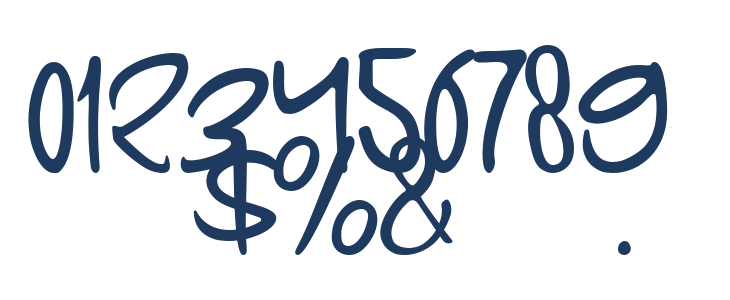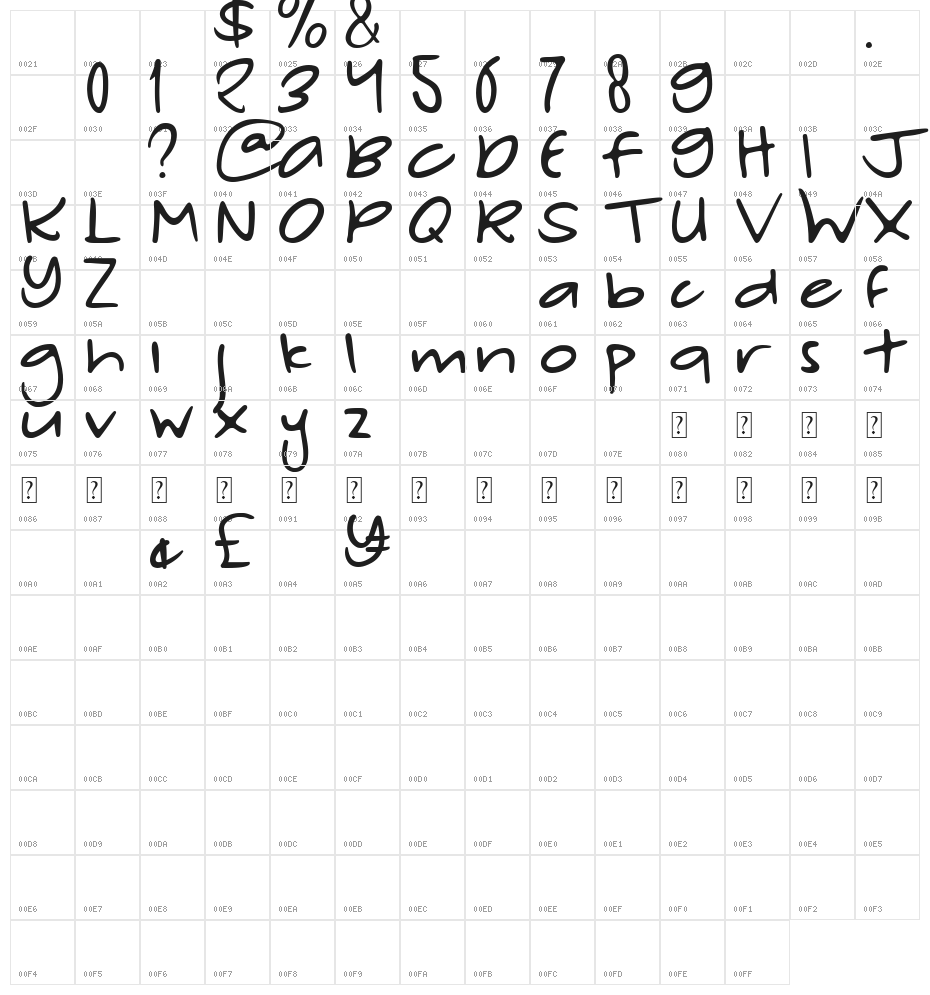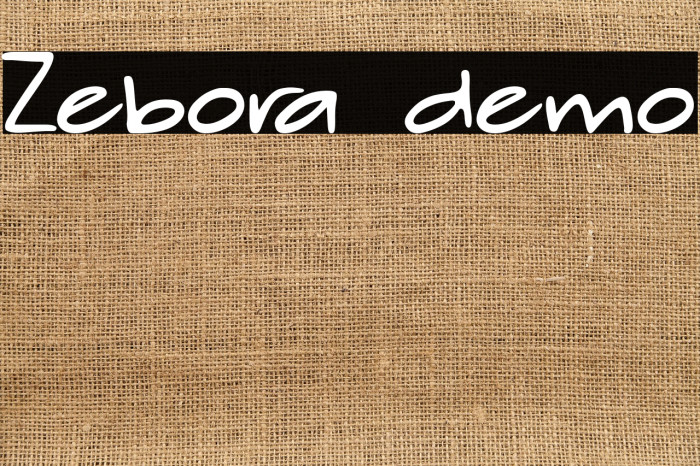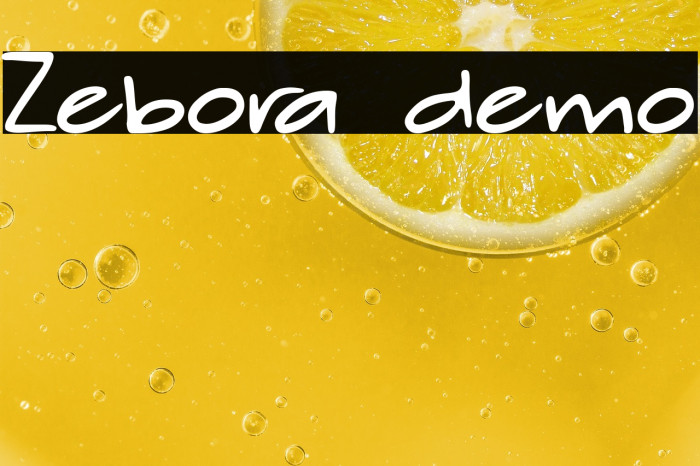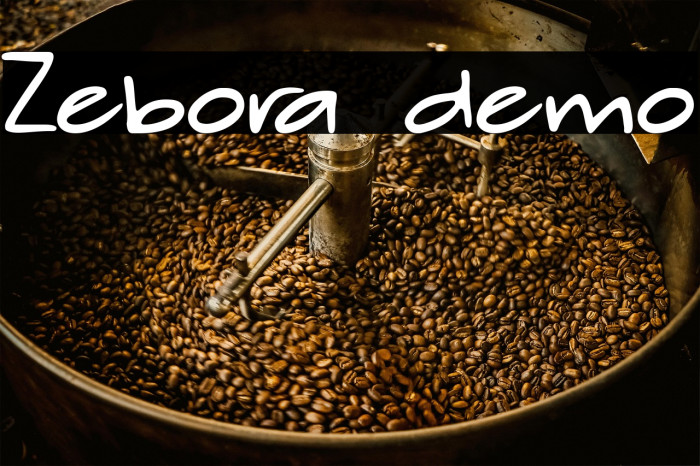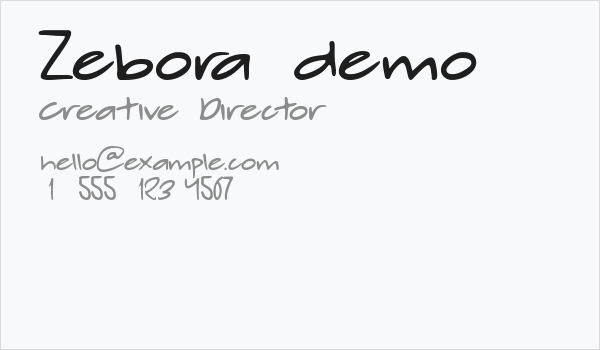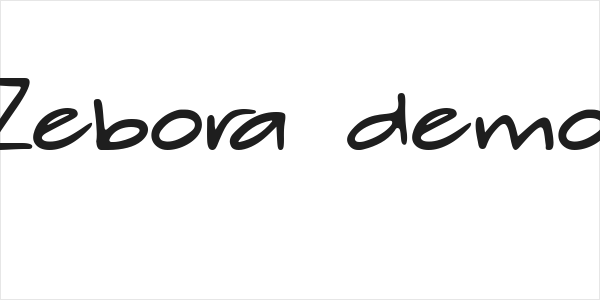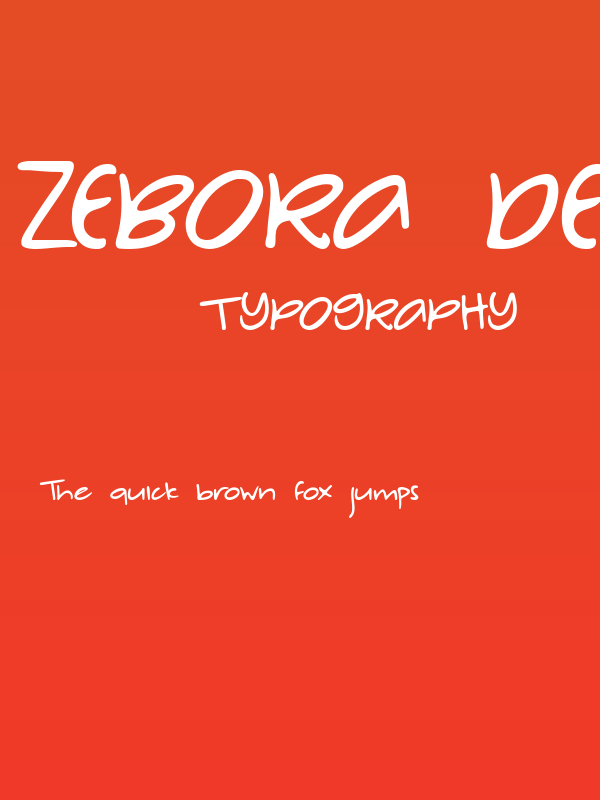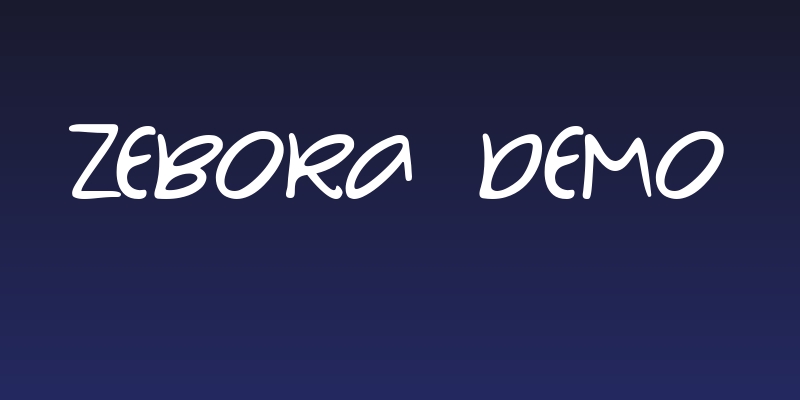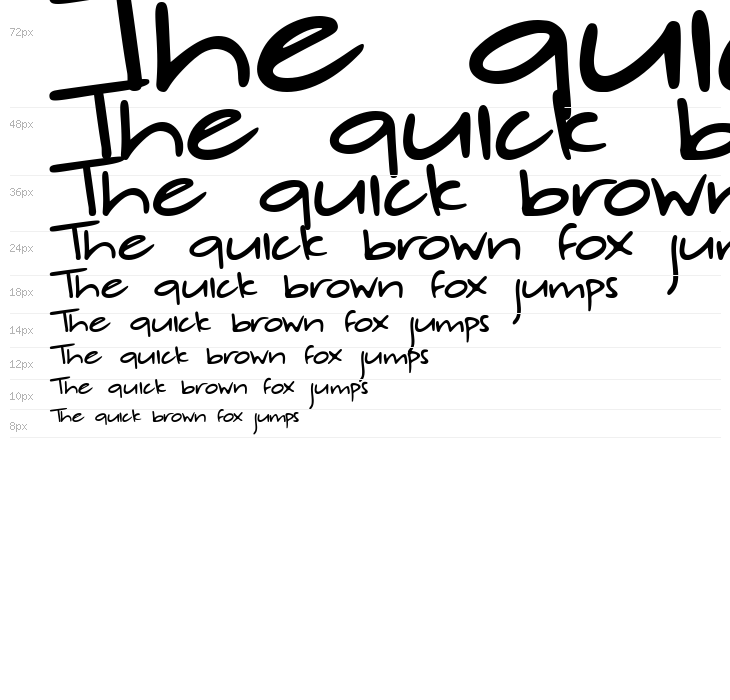
Zebora demo Font
Zebora demo Description
This font features a playful and casual handwritten style, characterized by its smooth, flowing curves and slightly irregular letterforms. The uppercase and lowercase letters maintain a consistent style, with rounded edges and a natural, organic feel. The numerals and special characters follow the same aesthetic, adding to the cohesive look of the font. Its informal appearance makes it suitable for projects that require a personal touch, such as greeting cards, invitations, or playful branding materials. The font's legibility is enhanced by its medium stroke contrast and balanced character spacing, making it easy to read while retaining its unique charm.
| Use Case | Greeting cards, Invitations, Playful branding |
| Proposed Projects | Ideal for greeting cards, invitations, playful branding, and personal projects. |